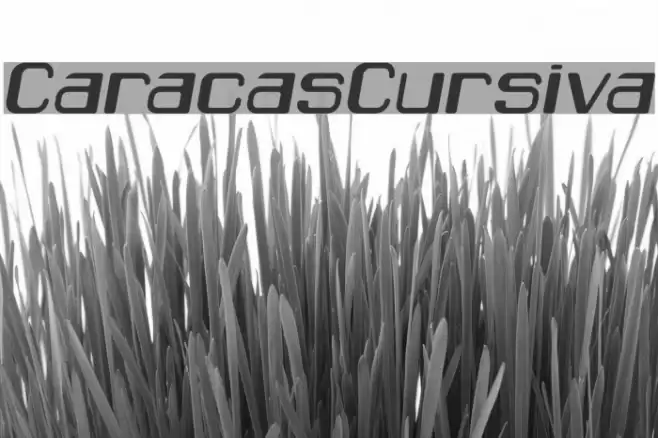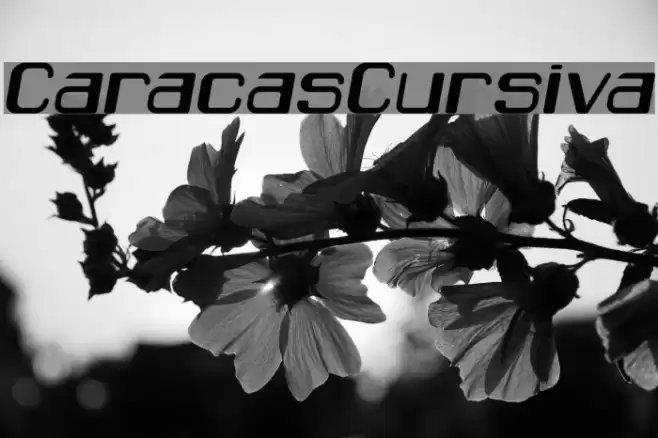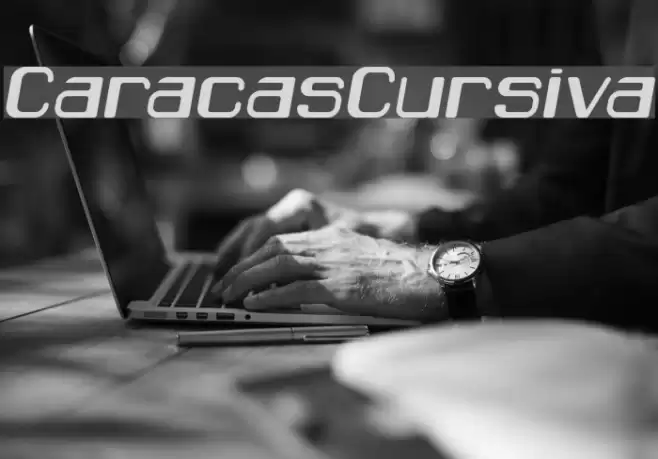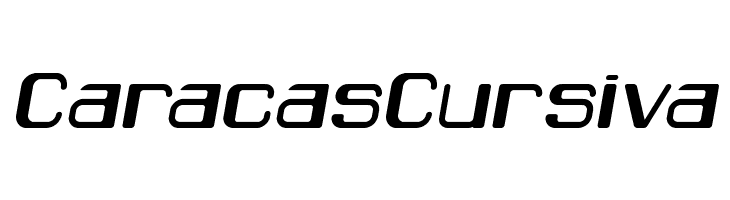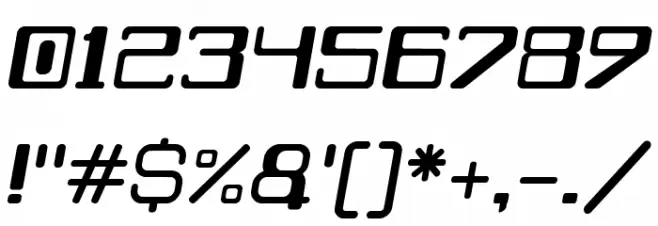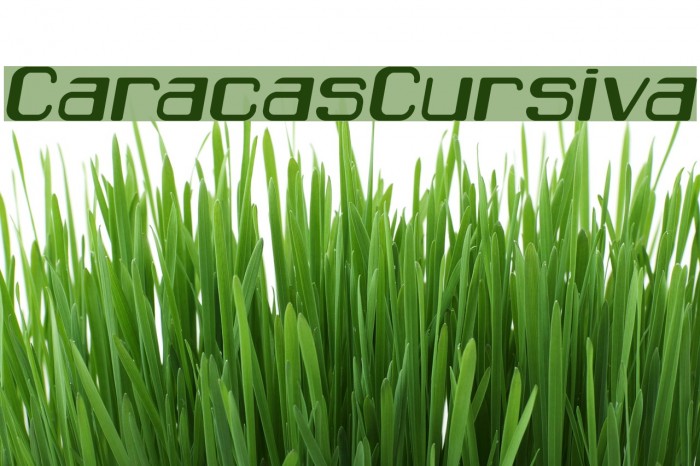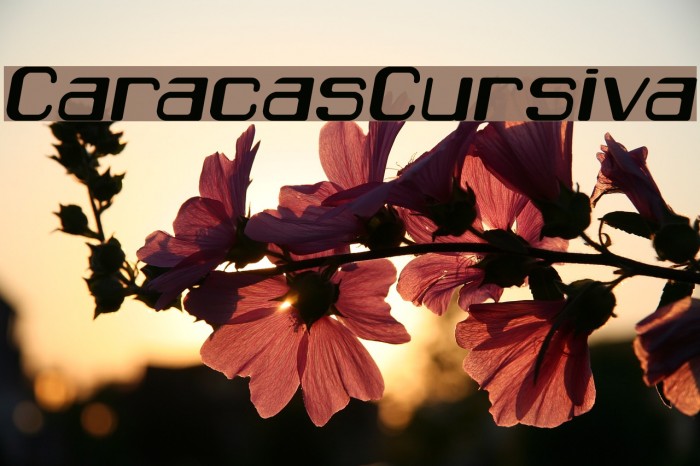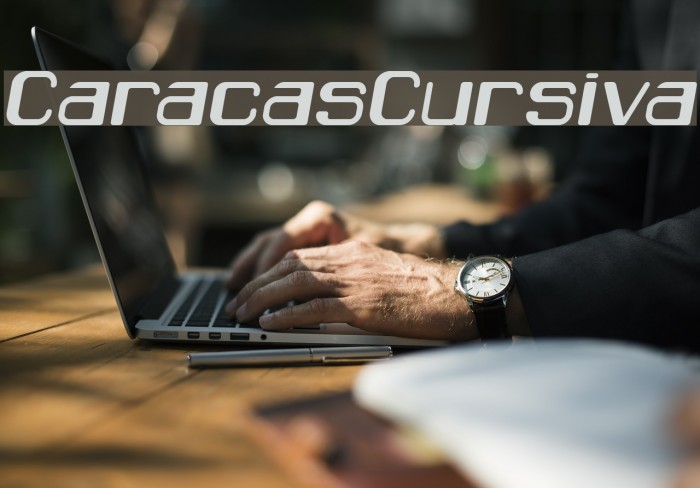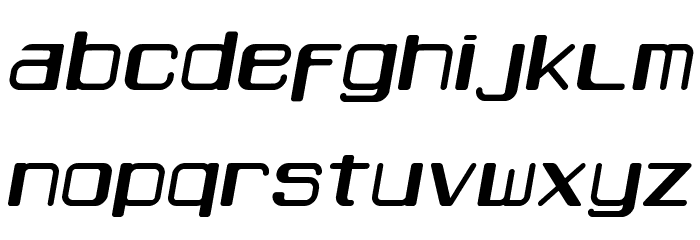
CaracasCursiva Font
CaracasCursiva Description
This font features a sleek, modern design with a slight slant, giving it a dynamic and forward-moving appearance. The characters are well-defined with a consistent stroke width, creating a uniform and clean look. The uppercase letters are bold and assertive, while the lowercase letters maintain a similar style with a slightly more delicate touch. The numerals are clear and easy to read, matching the overall aesthetic of the font. Special characters are included, maintaining the same stylistic elements, ensuring versatility in various applications.
A modern, slanted font with consistent stroke width and a dynamic appearance from Uncategorized fonts.
- Proposed Projects: Ideal for branding, advertising, and digital media projects that require a modern and dynamic look.
- Use Case: Headlines, Logos, Digital Media